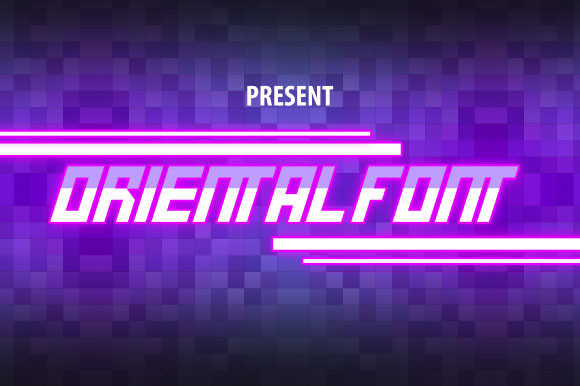
Introducing Oriental Font, the ultimate display font that exudes boldness and thickness, ready to elevate your designs to new heights. This square-lettered font is a true masterpiece, crafted with precision to ensure that every character commands attention.
With Oriental Font, you'll never have to worry about your designs going unnoticed. Its captivating presence is sure to make a lasting impression, whether you're creating futuristic posters, eye-catching social media graphics, or innovative website designs. Oriental Font is a versatile font that adapts effortlessly to any project, adding a touch of sophistication and modernity.
Its unique square shape creates a sense of stability and solidity, making it perfect for headlines, logos, and branding materials. The thick, bold strokes of Oriental Font convey strength and confidence, ensuring that your message is delivered with impact.
But Oriental Font is more than just a visually striking font; it's also incredibly versatile. It pairs effortlessly with other fonts, allowing you to create harmonious and visually appealing designs. Whether you're looking to add a touch of futurism to your projects or simply want to make a statement, Oriental Font is the perfect choice.
So why settle for ordinary fonts when you can have the extraordinary? Embrace the power of Oriental Font and watch as your designs transform into captivating masterpieces. Stand out from the crowd and leave a lasting impression on your audience.